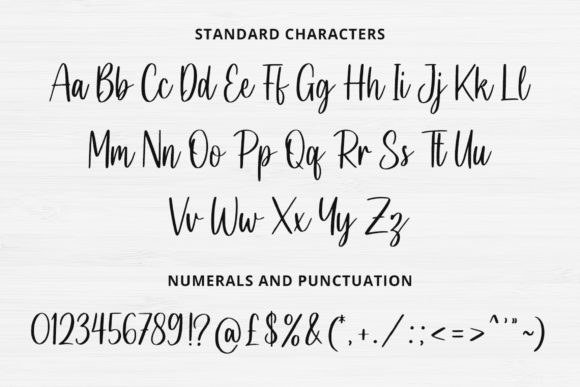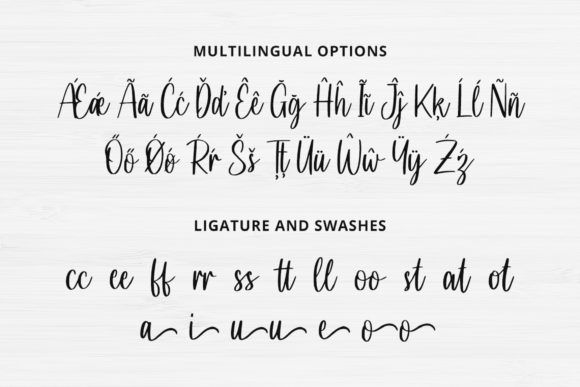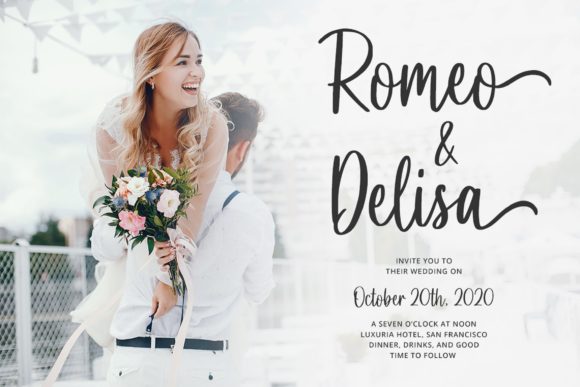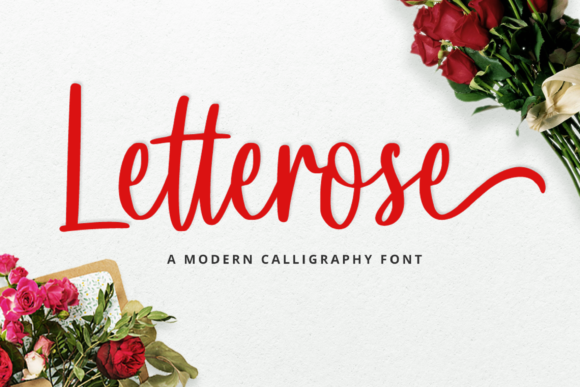
Introduction to Letterose Font
Letterose is a classic handwritten font.
Use this beautiful font to create oustanding designs .
Key Features of Letterose Font